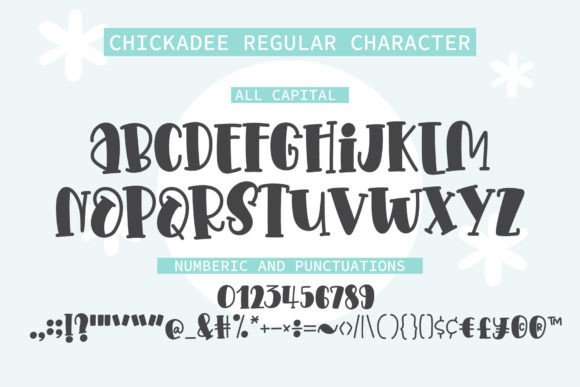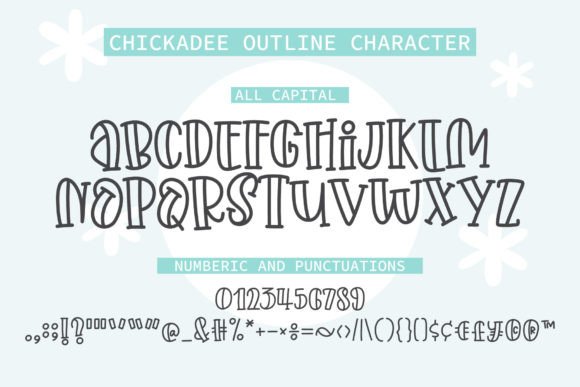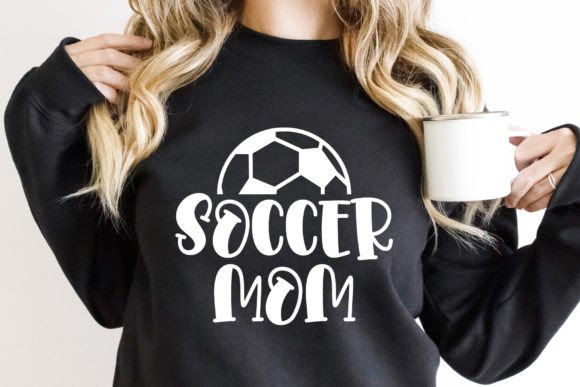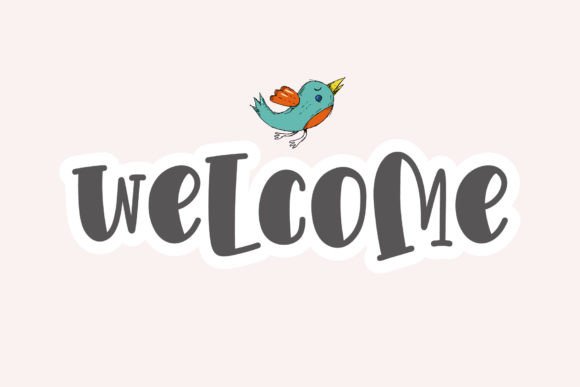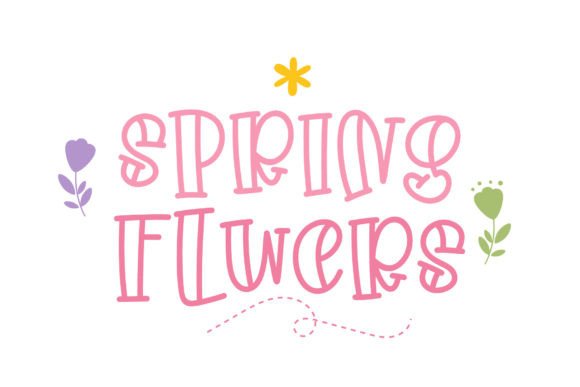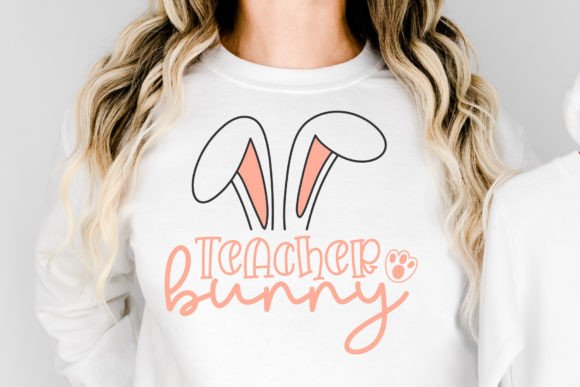
Introducing Chickadee Font: The Sweet and Cute Display Font You Need
Are you looking for a font that can add a touch of sweetness and cuteness to your designs? Look no further than Chickadee Font! This incredibly versatile display font is perfect for creating a wide range of projects, from fun wedding invitations to beautiful stationary art, eye-catching social media posts, and much more.
The Charm of Chickadee Font
Chickadee Font is a sweet and cute display font that is sure to capture the hearts of designers and crafters alike. Its unique and playful style makes it perfect for adding a personal touch to any project. Whether you’re creating a wedding invitation, a social media post, or a piece of stationary art, Chickadee Font is sure to make your design stand out.
One of the best things about Chickadee Font is its versatility. This font can be used for a wide range of projects, including:
- Wedding invitations: Create beautiful and unique wedding invitations that will set the tone for the big day.
- Stationary art: Add a personal touch to your stationary art with Chickadee Font’s playful and whimsical style.
- Social media posts: Make your social media posts stand out with Chickadee Font’s eye-catching and engaging style.
- Signs and banners: Use Chickadee Font to create eye-catching signs and banners for parties, events, and more.
- Digital products: Create digital products, such as printables, planners, and journals, with Chickadee Font’s cute and playful style.
Why Choose Chickadee Font?
So, why choose Chickadee Font over other display fonts? Here are just a few reasons:
- Unique style: Chickadee Font has a unique and playful style that is sure to make your designs stand out.
- Versatility: This font can be used for a wide range of projects, making it a great addition to any designer’s toolkit.
- Easy to read: Despite its playful style, Chickadee Font is easy to read, making it perfect for use in a variety of projects.
- High-quality: Chickadee Font is a high-quality font that is designed to look great in any project.
Tips for Using Chickadee Font
Here are a few tips for using Chickadee Font in your designs:
- Pair it with other fonts: Chickadee Font pairs well with other fonts, so don’t be afraid to experiment with different combinations.
- Use it in large sizes: Chickadee Font is designed to be used in large sizes, so don’t be afraid to make it big and bold.
- Experiment with colors: Chickadee Font looks great in a variety of colors, so experiment with different colors to find the one that works best for your project.
- Have fun: Most importantly, have fun with Chickadee Font! Its playful style is perfect for adding a personal touch to your designs.
In conclusion, Chickadee Font is a sweet and cute display font that is perfect for designers and crafters looking to add a touch of personality to their projects. Its versatility, unique style, and ease of use make it a great addition to any designer’s toolkit. So why not give Chickadee Font a try today and see the difference it can make in your designs?